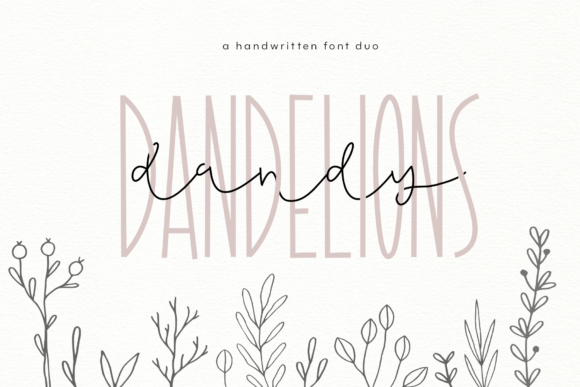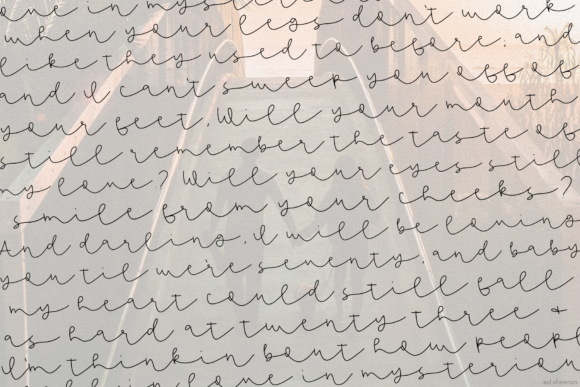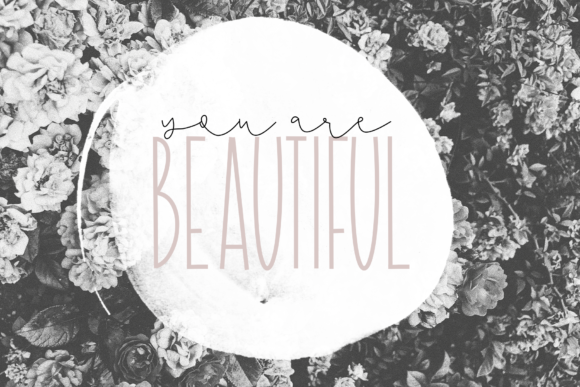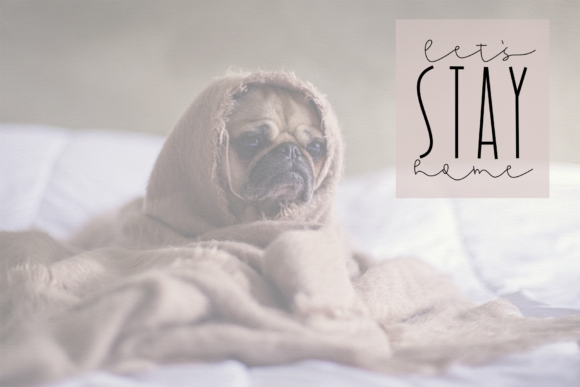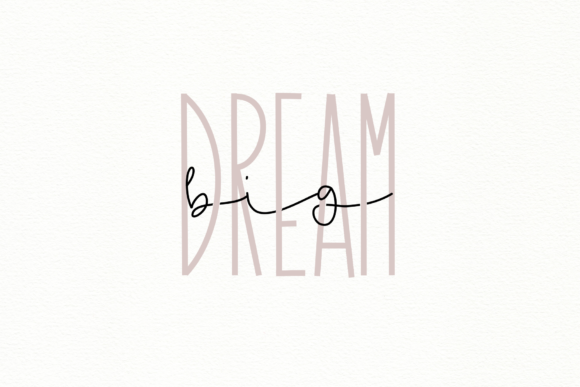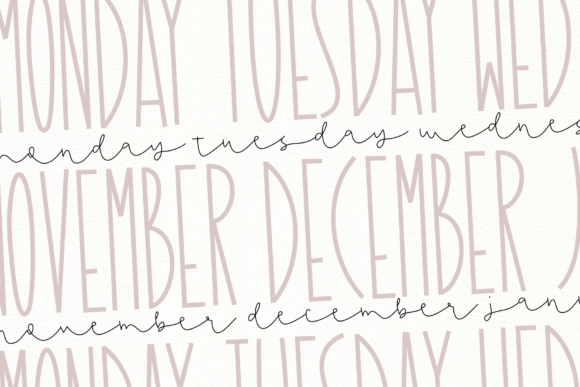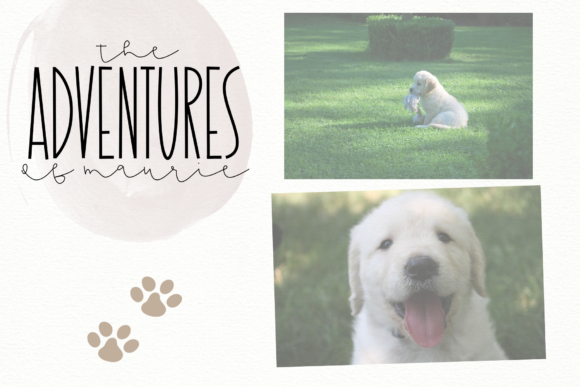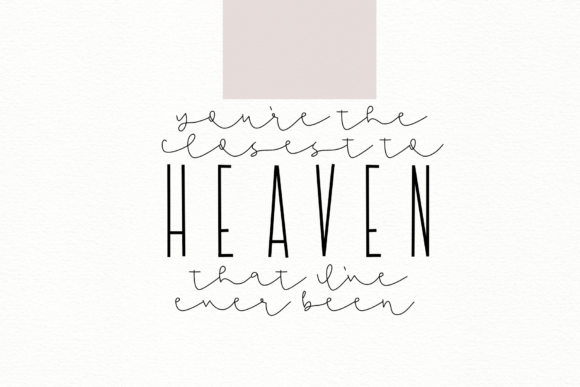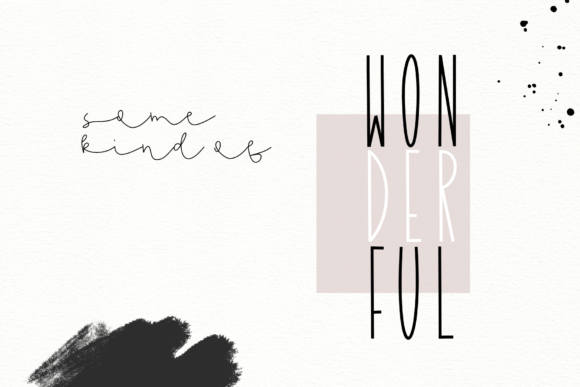
Dandy Dandelions Duo Font
About Dandy Dandelions Duo Font
Dandy Dandelions duo is a match made in heaven, the authenticity of Dandy perfectly complements Dandelions’ style. Combining these two fonts on your next design will give it a charming and organic feel.
This versatility means that this font can be used in a wide variety of applications from headlines, to branding – the only limit is your imagination!